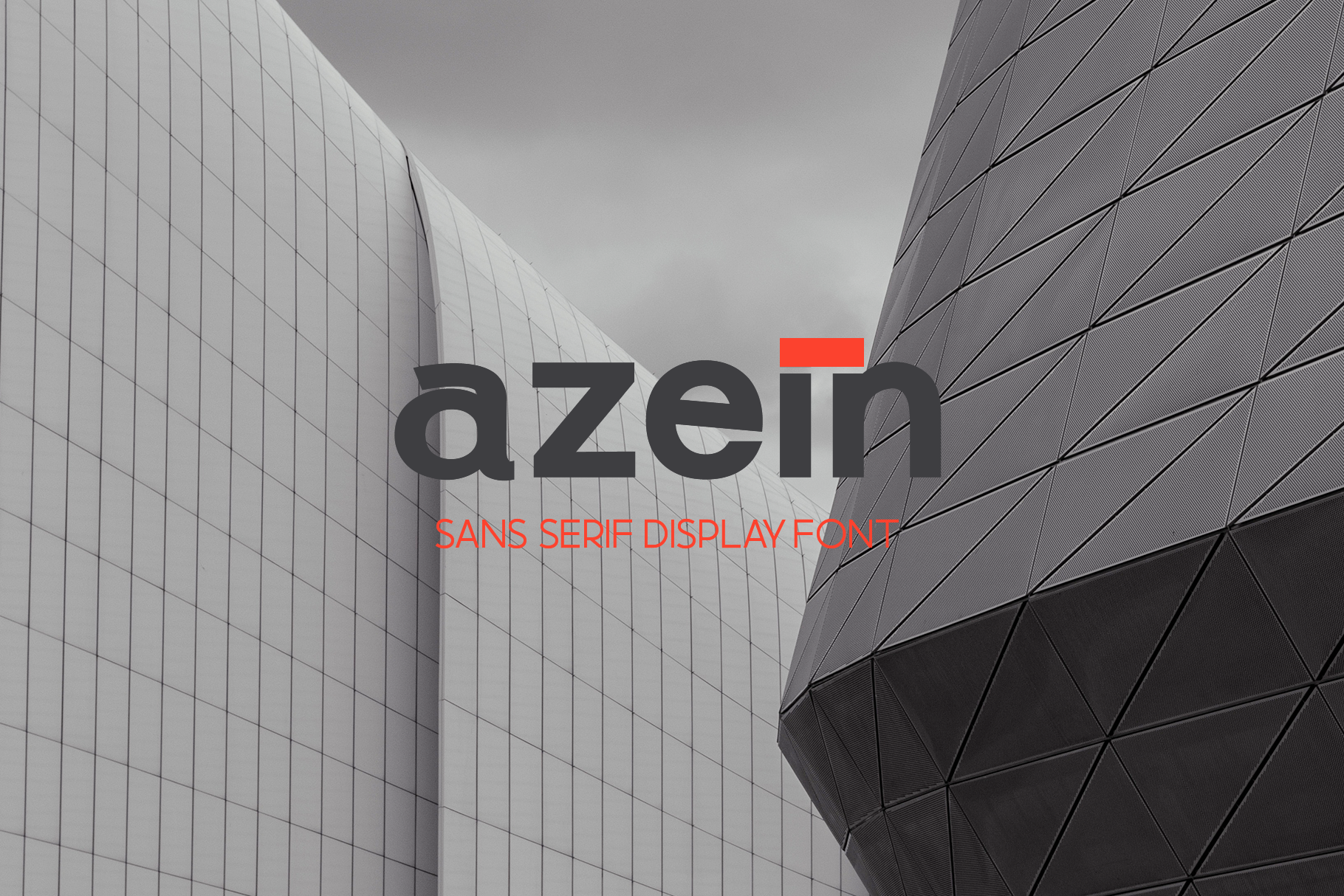
Azein - Modern Simple Font
Introducing Azein, an modern, simple, and cool sans serif font. So perfect for you who needs a typeface for logo designs, magazine, social media, brochure, and many more.